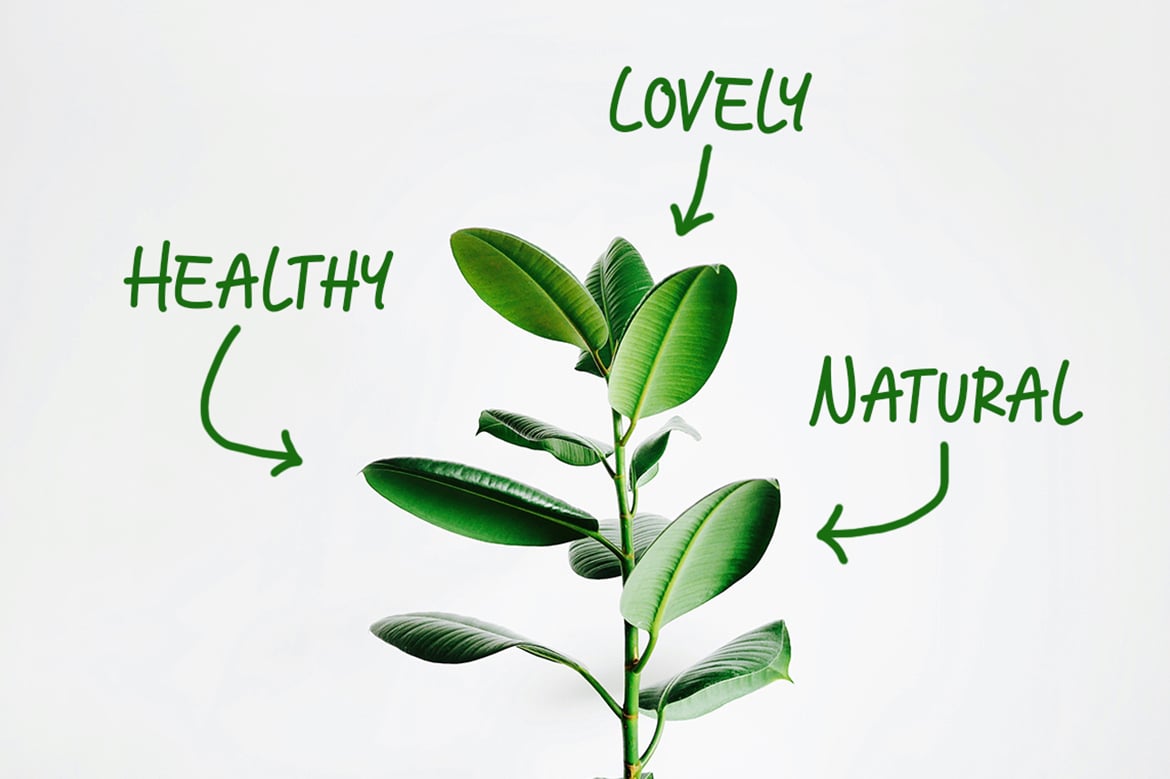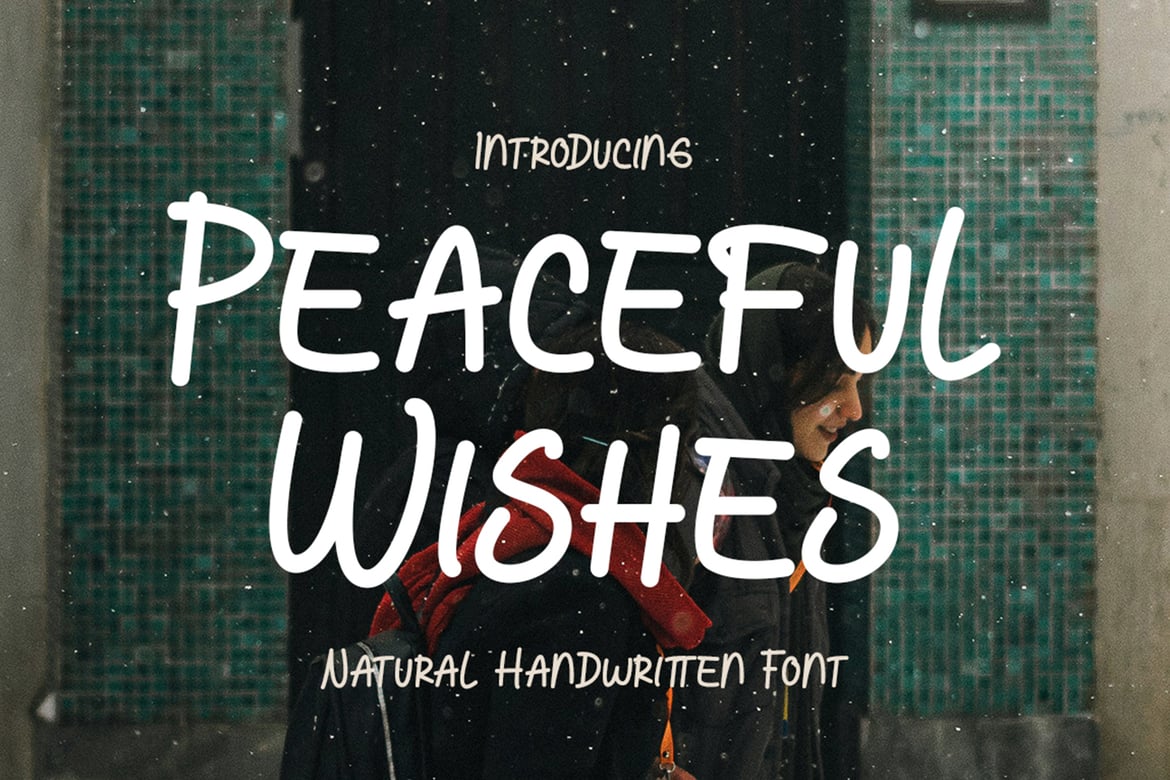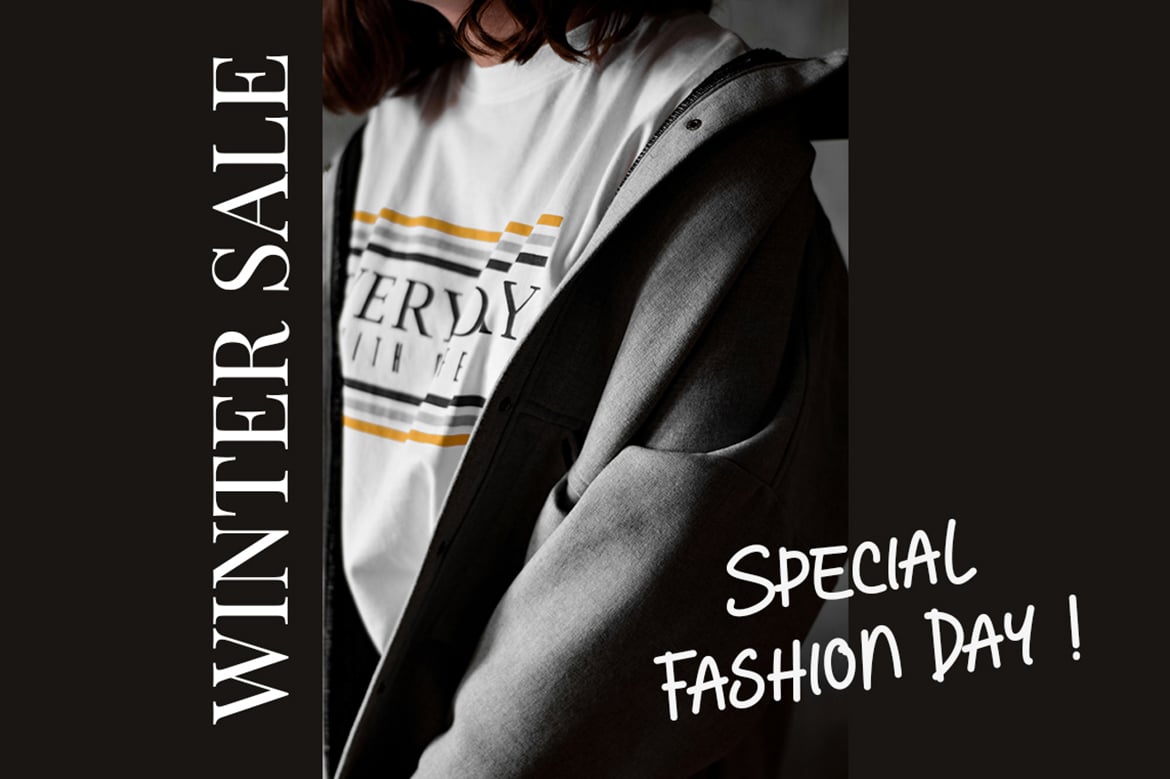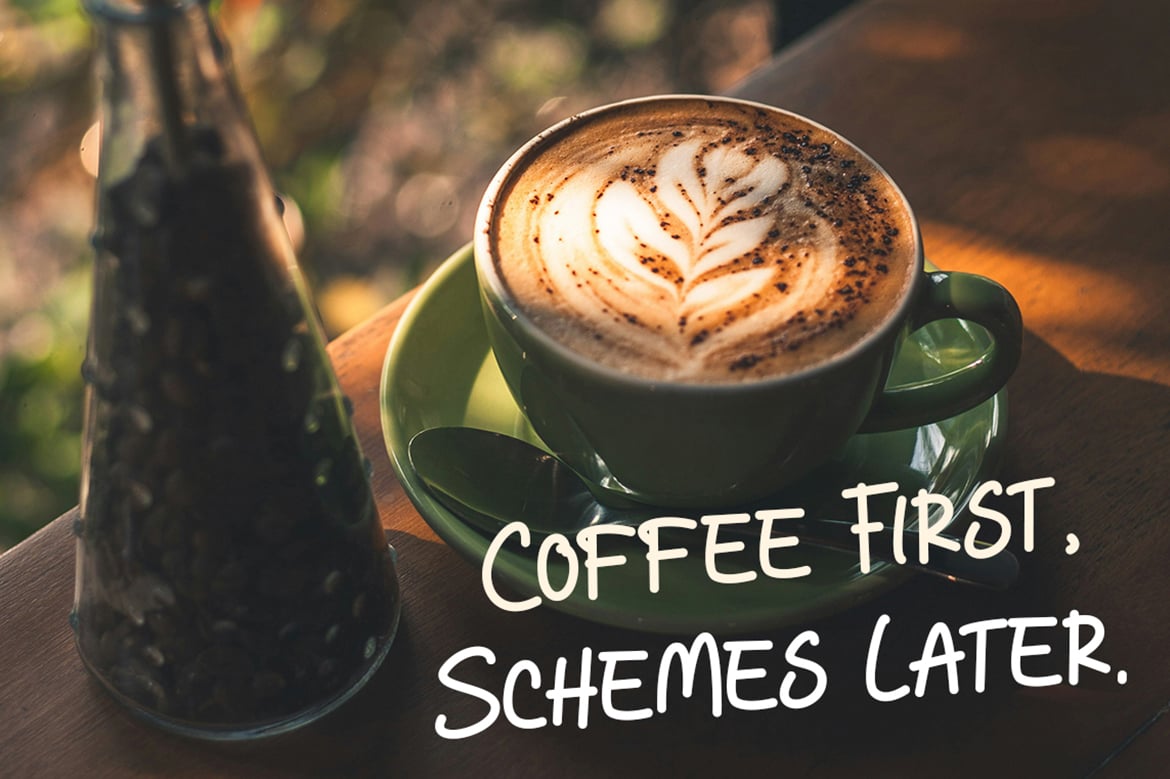
Peaceful Wishes – Natural Handwriting Font
Introducing Peaceful Wishes: Natural Handwriting Font
Peaceful Wishes is a beautifully crafted handwritten font that brings a sense of warmth and joy to any design. With its natural and playful strokes, this font captures the essence of heartfelt expressions and genuine connections. Each letter flows effortlessly, creating a relaxed and friendly look that feels both inviting and personal.
Ideal for projects that aim to convey sincerity and charm, Peaceful Wishes is perfect for greeting cards, quotes, social media posts, and branding that seeks a touch of whimsy. This font adds a unique personality, making every message feel like a gentle, heartfelt wish.